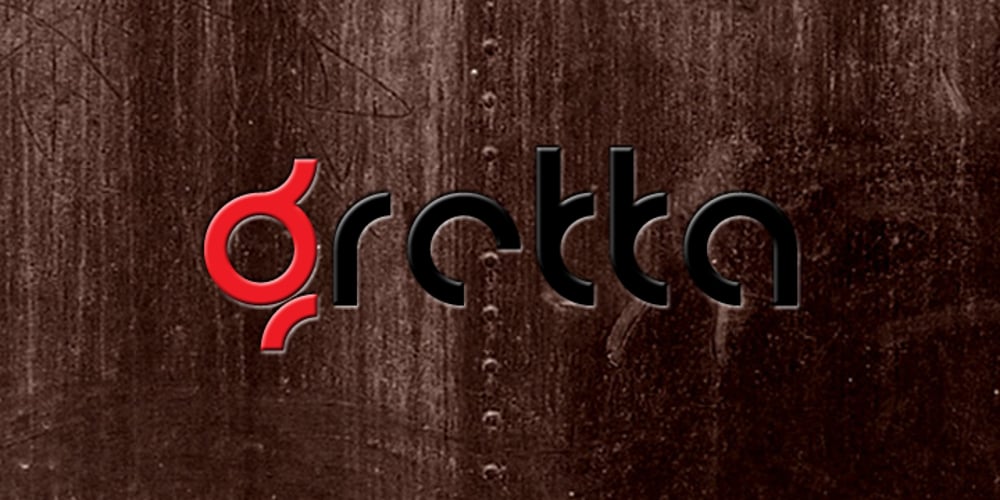
Gretta Font Family was designed by Ronnie Dela Cruz and published by ActiveSphere. Gretta contains 5 styles and family package options. ActiveSphere Fonts presents: Gretta. A font family ideal for flyers, label, logos, magazine, product branding, corporate branding, signage, posters and certainly in advertising. Check it out !